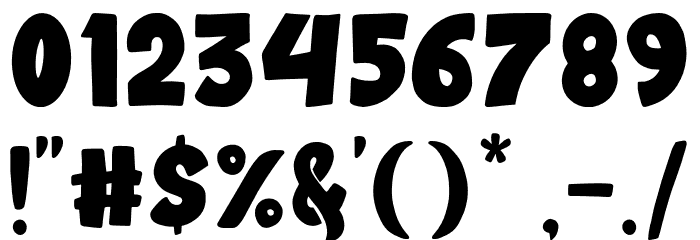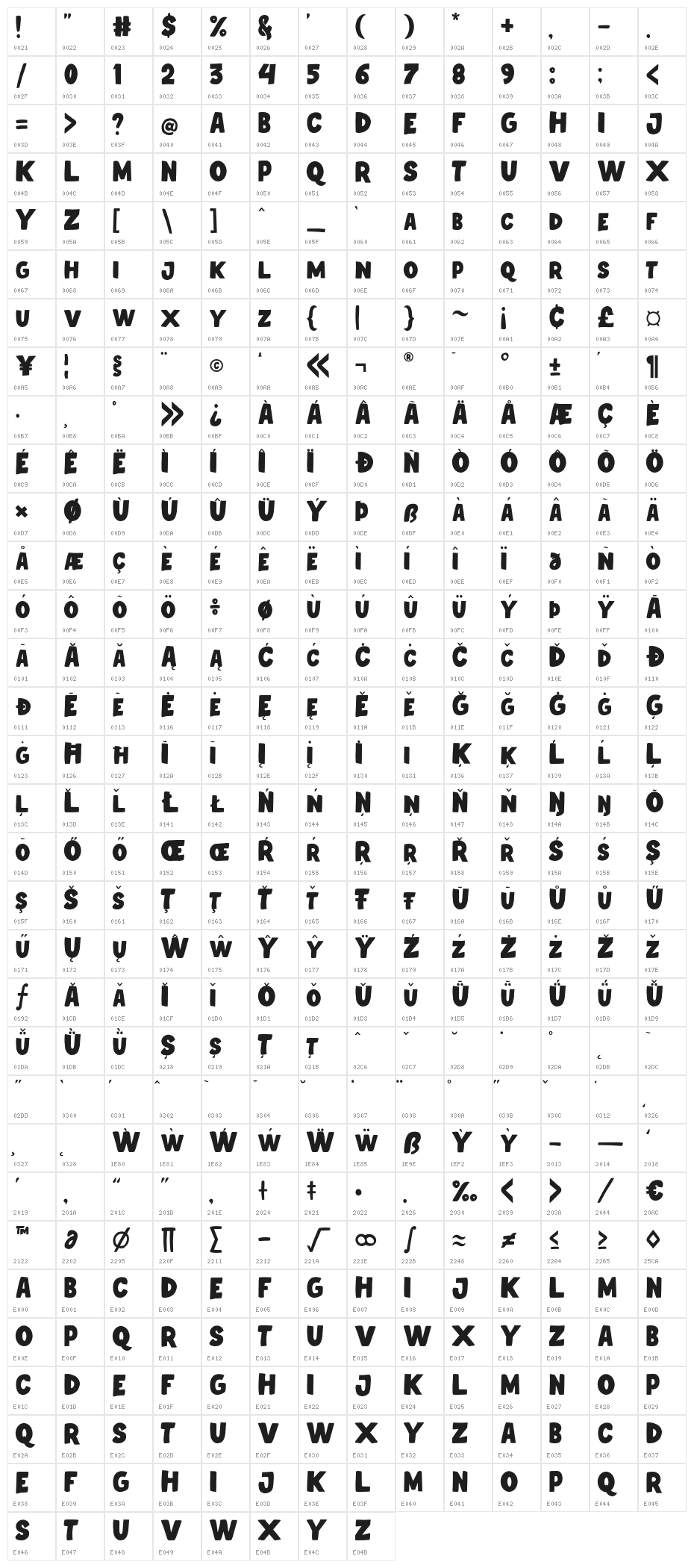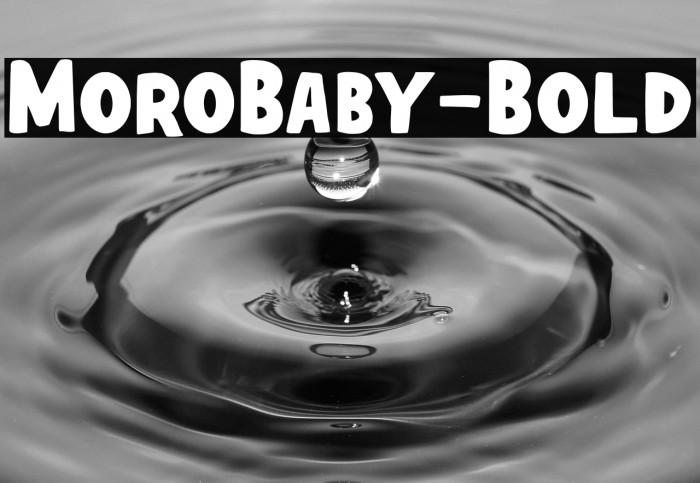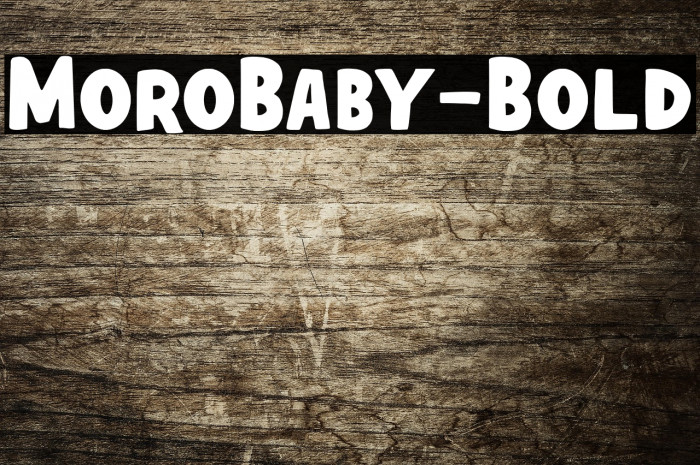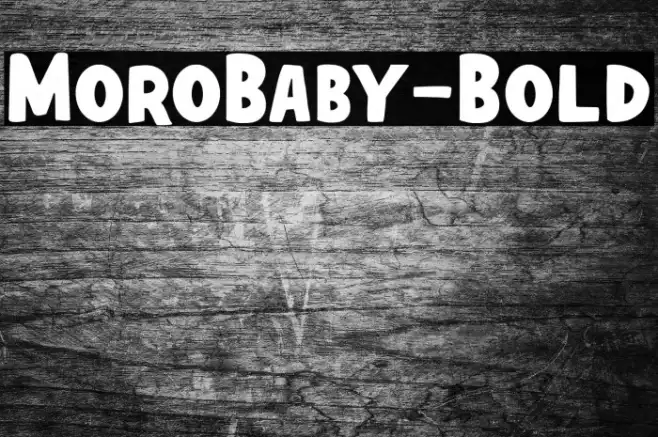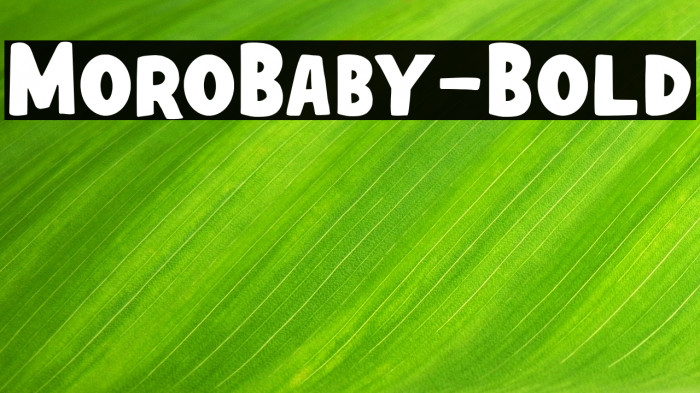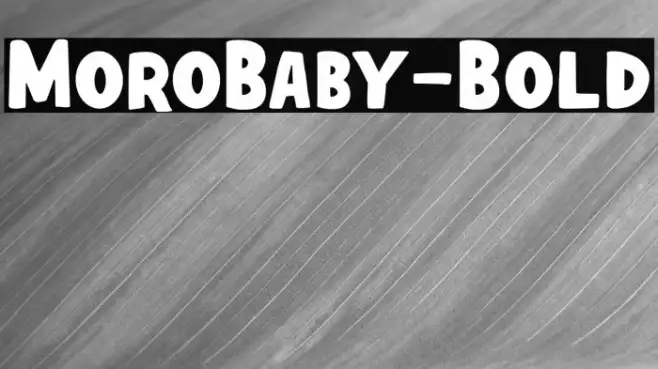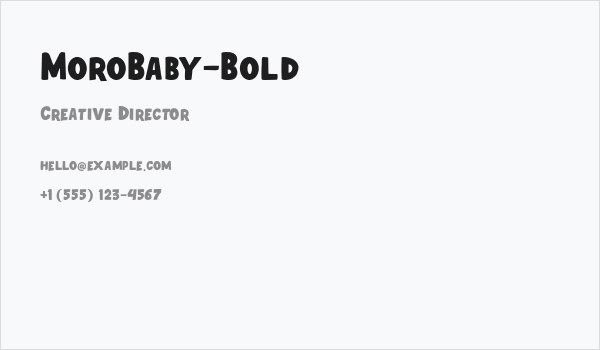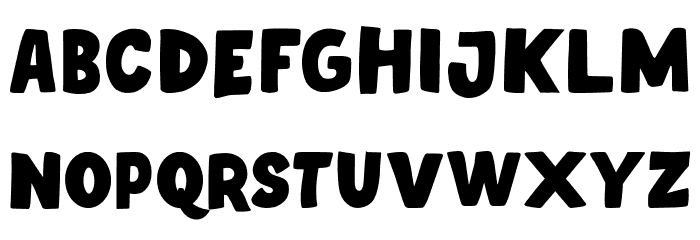
MoroBaby-Bold Font
MoroBaby-Bold Description
This font features bold, playful characters with a slightly irregular and hand-drawn appearance. The letters are thick and rounded, giving a friendly and approachable feel. The uppercase and lowercase letters maintain a consistent style, with the uppercase being slightly larger and more pronounced. The numbers and special characters follow the same bold and rounded design, ensuring uniformity across all elements. This font is ideal for projects that require a fun and informal touch, such as children's books, playful branding, or casual invitations.
| Overall Style | Playful, Casual |
| Proposed Projects | Children's books, playful branding, casual invitations, posters, and social media graphics. |